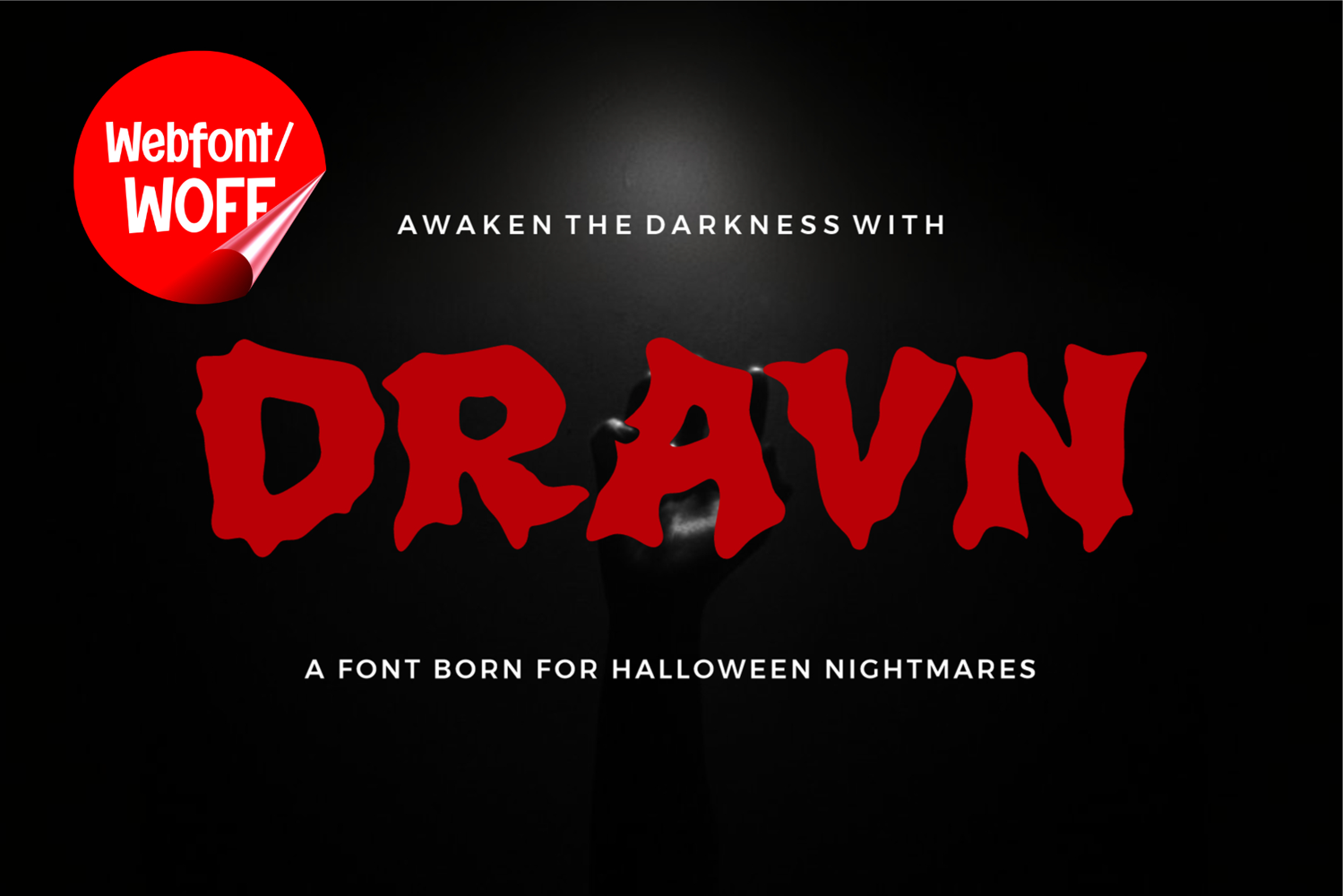
Dravn is a creepy horror display webfont designed to bring an eerie and unsettling atmosphere to digital projects. Featuring distorted and irregular letterforms, this typeface is ideal for Halloween websites, horror blogs, scary game interfaces, movie titles, event pages, dark branding, and other mysterious digital designs.
Its bold and unconventional appearance makes headlines, banners, titles, and promotional content instantly eye-catching while maintaining a strong horror-inspired personality.